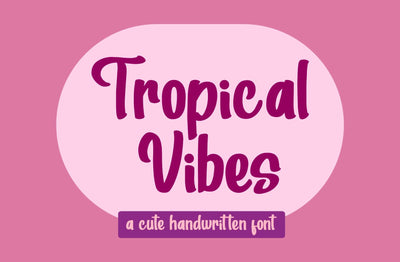
Tropical Vibes Cute Font
Tropical Vibes is a cute handwitten font. made specifically for crafters with clean lines and minimal nodes.
This font is perfect for cricut projects, branding, teachers, goodnotes, Tshirt, planners,
stickers, quotes and more!